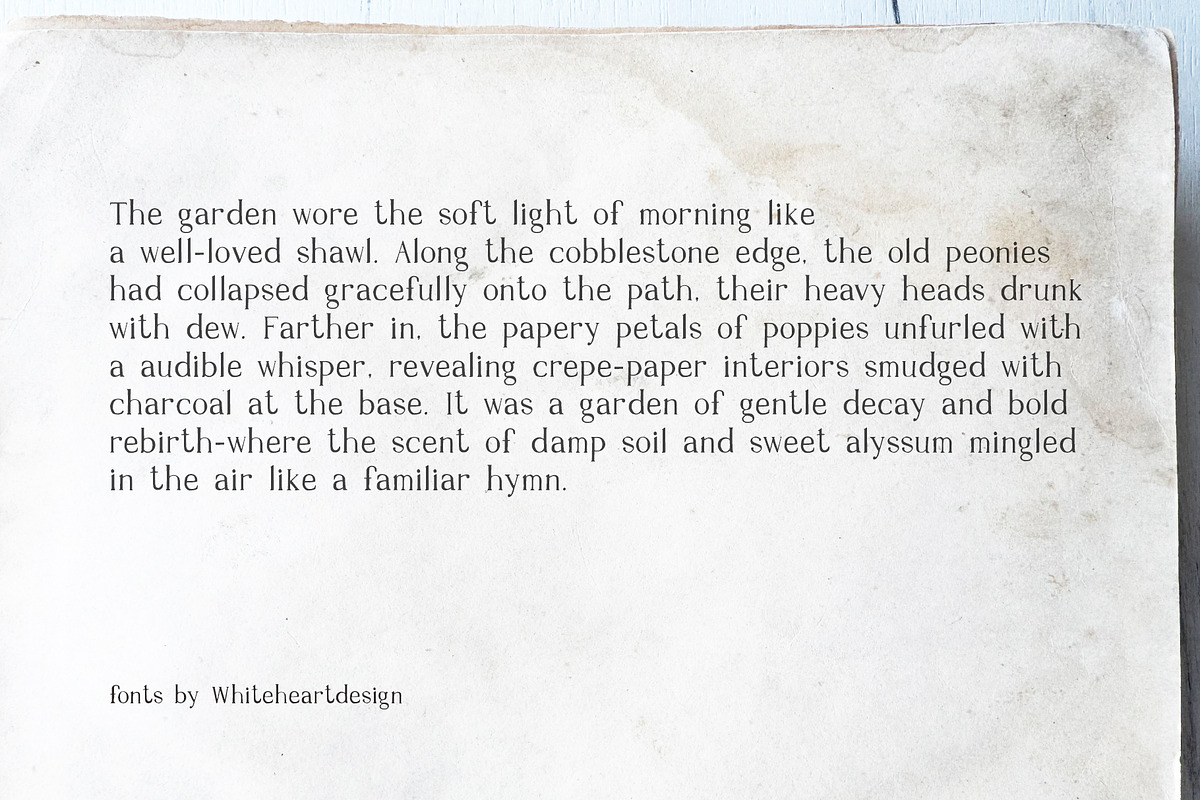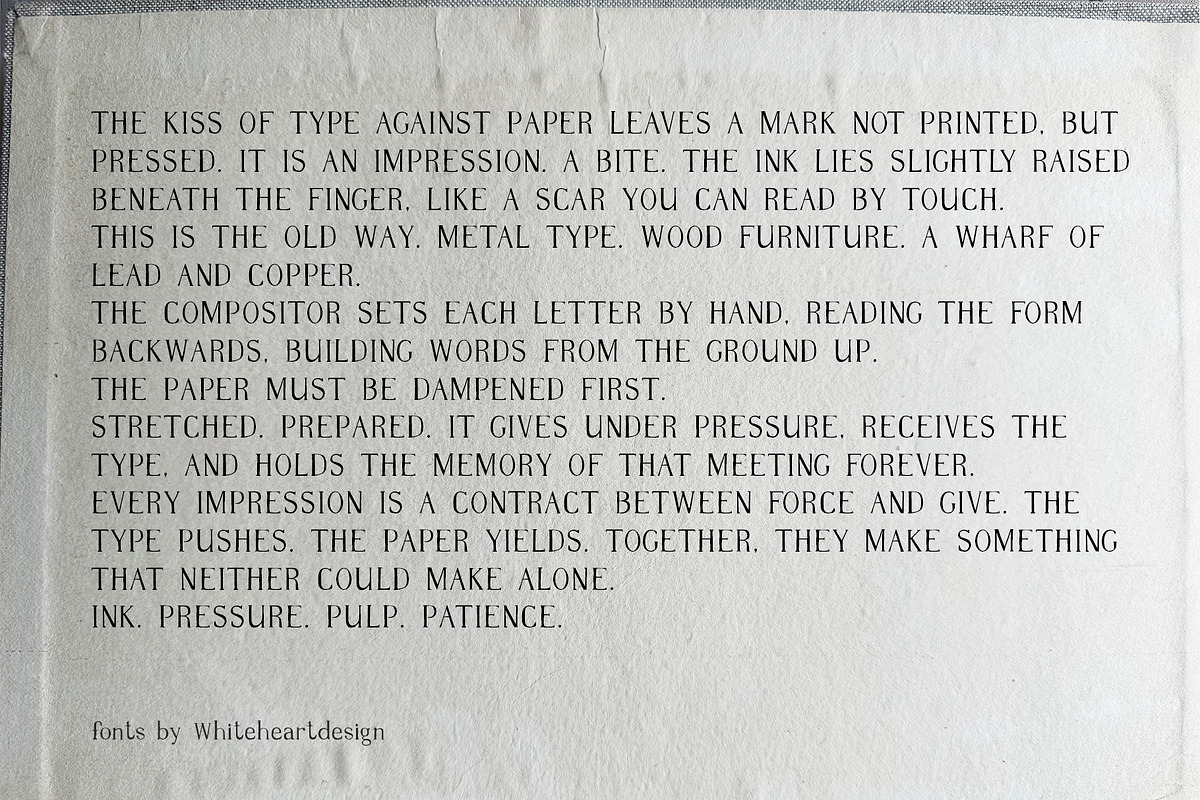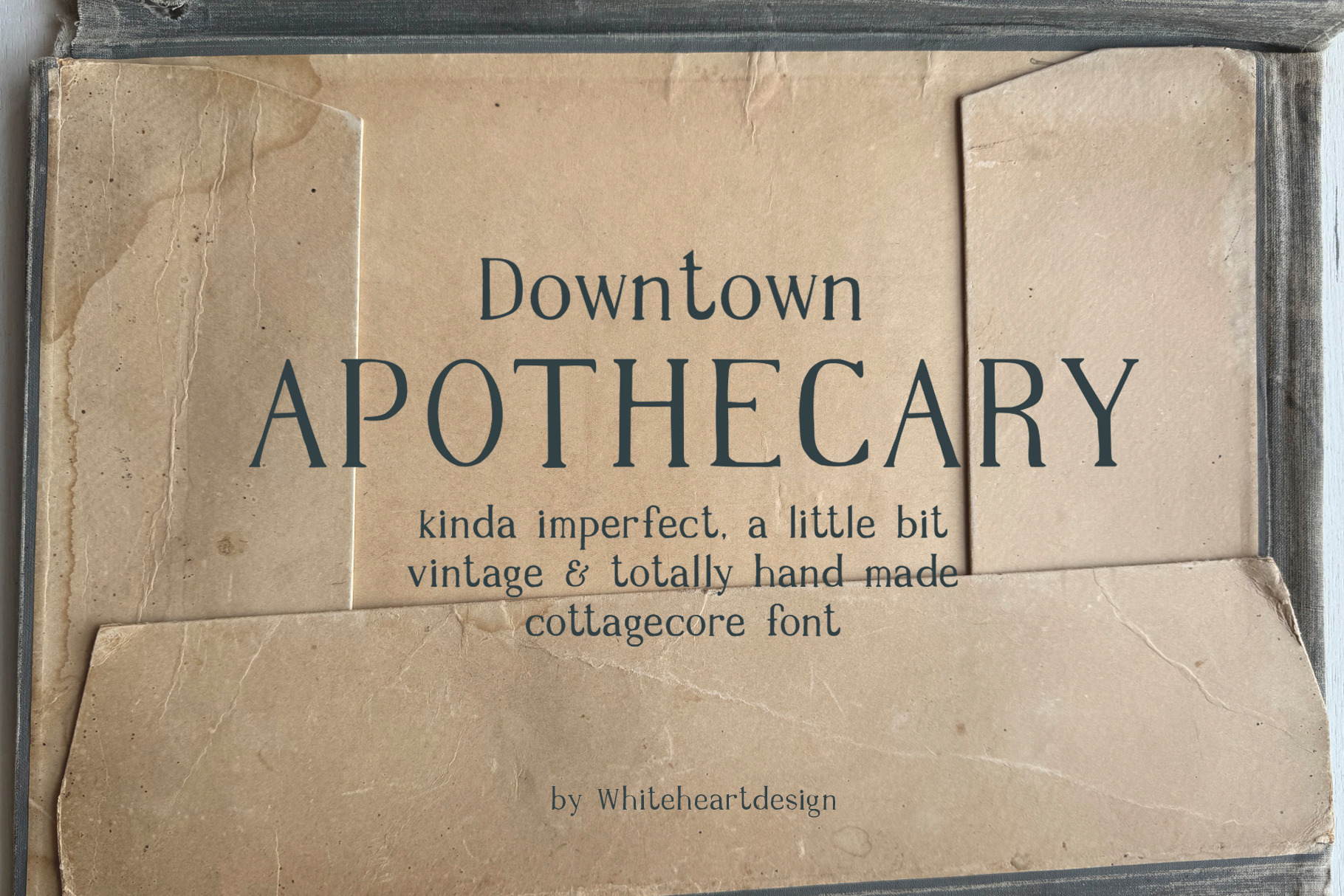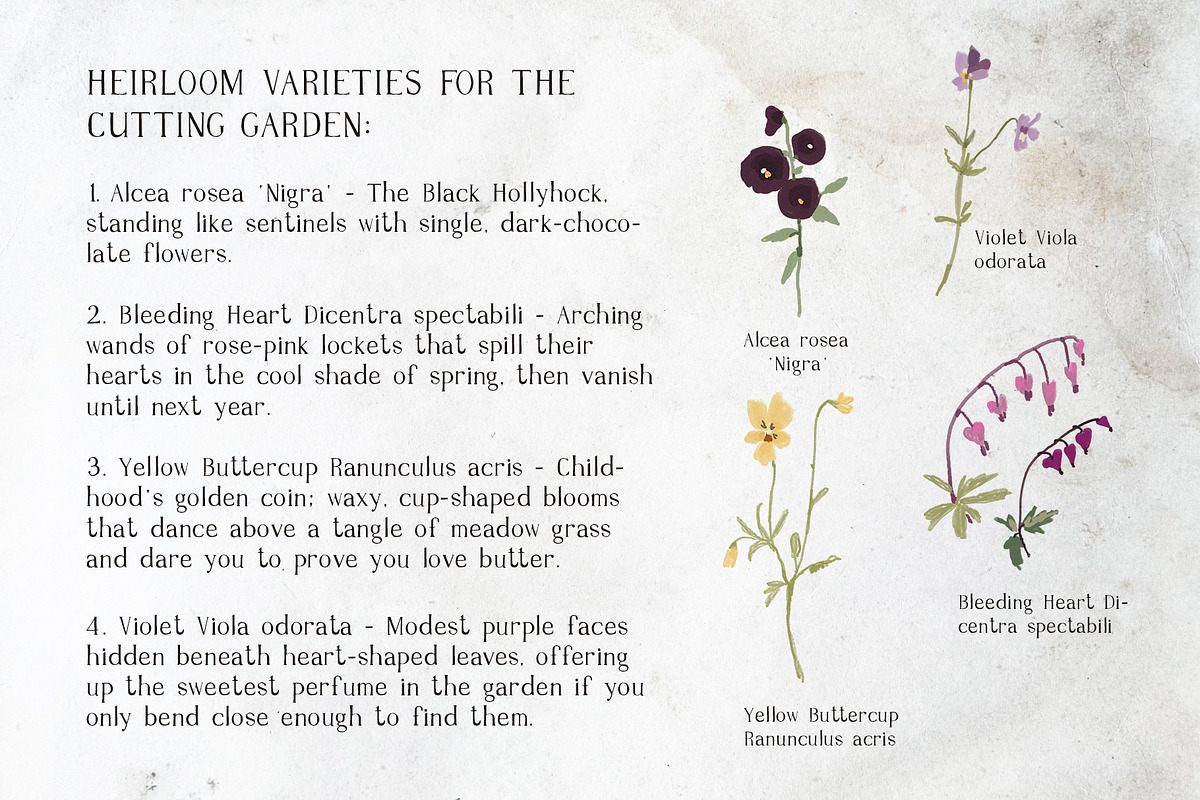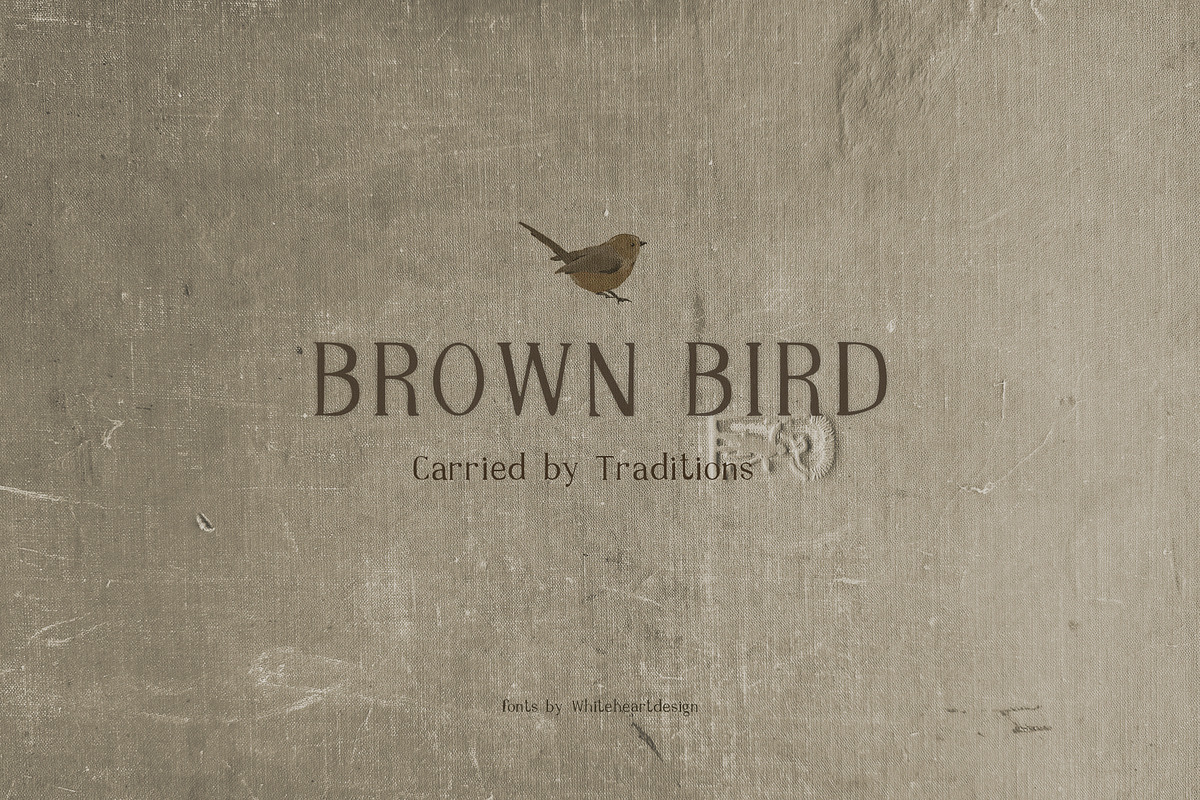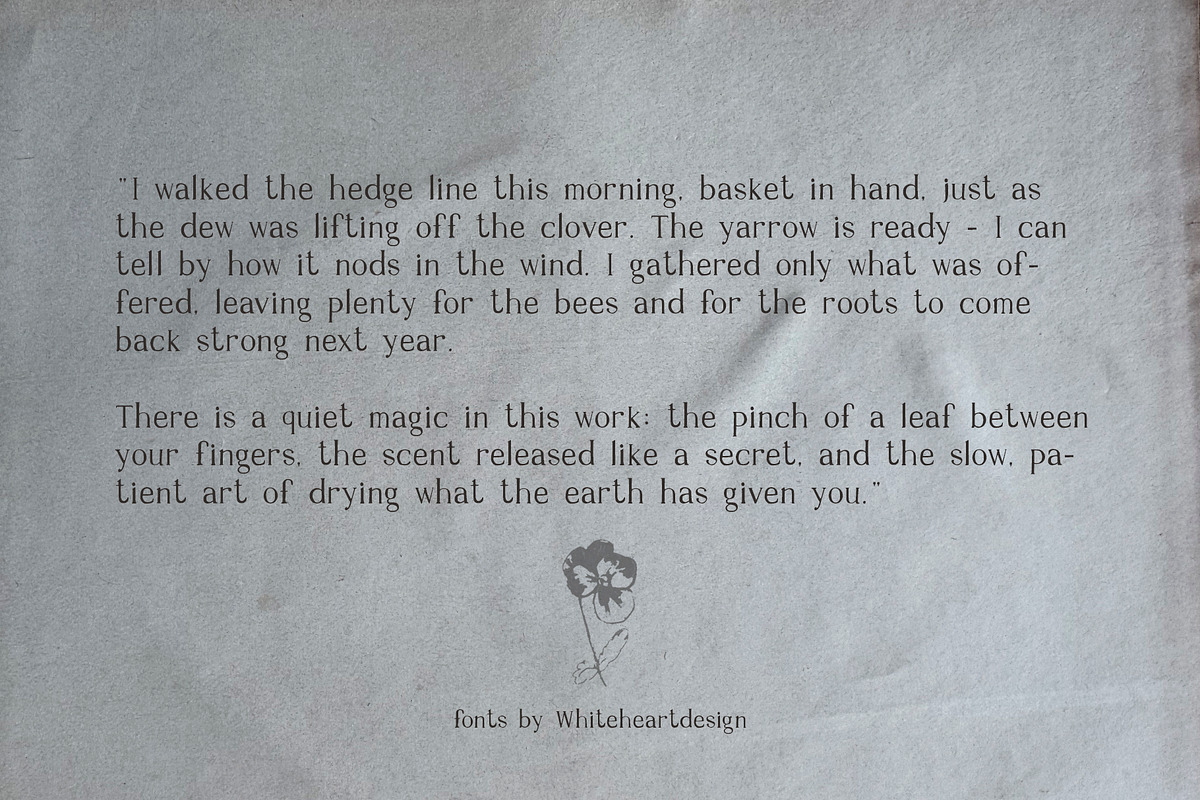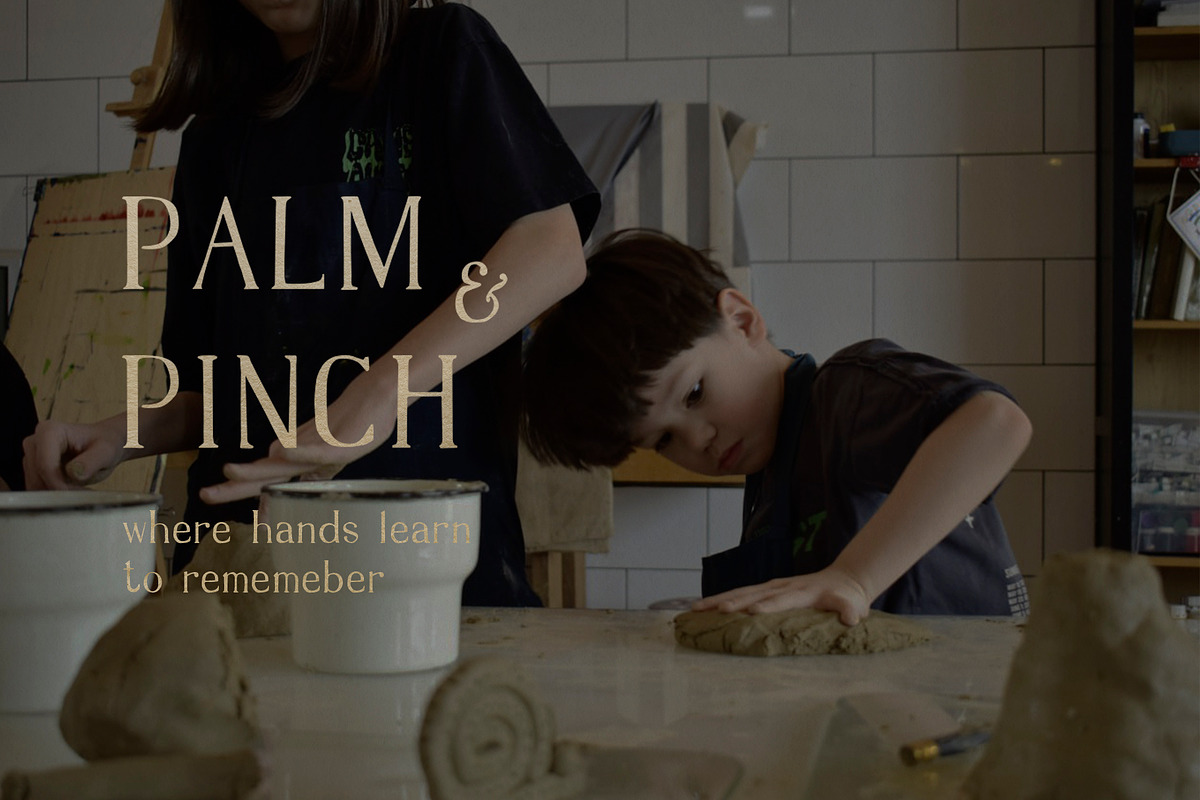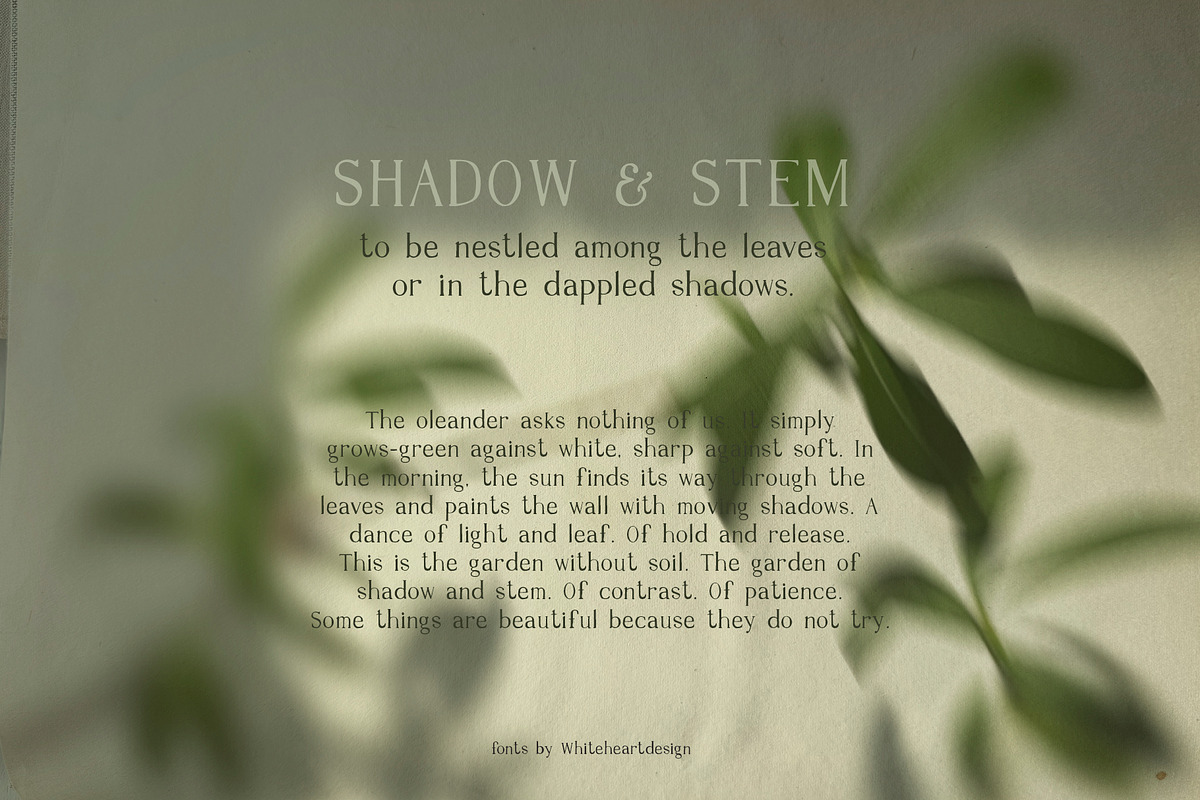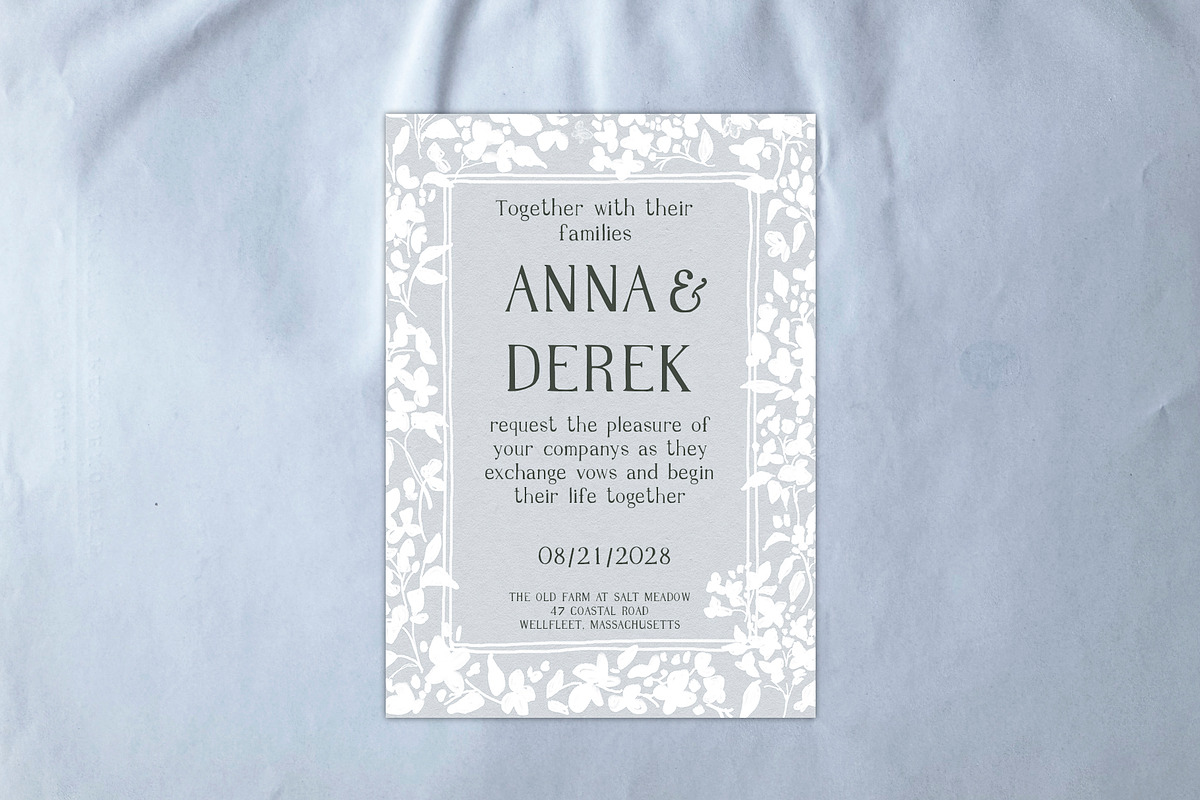
Imperfect Organic Serif Font
Downtown Apothecary is an organic, hand-drawn serif font that captures the imperfect charm of vintage storefronts, weathered signage, and old-world craftsmanship.
Designed for creators who value authenticity over perfection, this typeface brings warmth, character, and a distinctly human touch to every project.
The letters are drawn by hand, not rendered by machine. Each curve carries a subtle wobble. Each serif lands with gentle intention. The result is a font that feels alive-like it was painted on a window in 1923, or printed on a letterpress from worn wooden type, or written with a broad-nilo pen on a cracked leather ledger.
This font was born from a love of imperfection.
In a world of sterile, vector-perfect typefaces, Downtown Apothecary dares to be human. It asks to be touched. It looks at home on kraft paper, chalkboards, concrete walls, and aged cotton stock. It brings soul to branding and warmth to words.
Apothecary & Wellness Brands: Herb shops, dispensaries, natural remedies, essential oils, and holistic studios.
Vintage & Rustic Branding: Storefronts, signage, product labels, and packaging with an authentic, timeworn feel.
Coffee Shops & Bakeries: Menu boards, bag labels, chalkboard specials, and cafe identities.
Breweries & Distilleries: Beer labels, bottle caps, tap lists, and brand stories for craft spirits.
Editorial & Publishing: Book covers, zines, literary journals, and articles with a literary or bohemian edge.
Wedding Stationery: Invitations, place cards, and signage for couples who love the imperfect, the real, the handmade.
Florists & Garden Shops: Plant tags, seed packets, and botanical posters.
Music & Culture: Album covers, band posters, and merchandise for artists with an analog soul.
Tattoo & Art Studios: Flash sheets, studio signage, and artist portfolios.
Small Business & Makers: Any brand that wants to feel human, approachable, and true.
Full set of uppercase (caps) and lowercase (low letters)
Punctuation, numerals, and symbols
Standard ligatures for a natural, hand-drawn flow
• A beautifully imperfect ampersand that feels drawn, not designed
• Authentic letters are intentionally imperfect.
The story behind the font:
Downtown Apothecary began on a walk through an old city at golden hour. Storefronts with faded paint. Windows tagged with layers of history. Concrete walls holding the shadows of fire escapes. A vintage apothecary sign, barely legible, its letters softened by decades of sun and rain. That sign stayed. The memory of its imperfections-the way the paint had cracked, the way the serifs had worn down, the way it still said exactly what it needed to say-became the seed of this font. Downtown Apothecary is for designers who understand that the best work doesn't try to be perfect. It tries to be true.
Pairing suggestions:
Downtown Apothecary pairs beautifully with clean sans-serifs for contrast, or with messy handwriting fonts for a layered, personal feel. For a monochromatic, textured look, combine it with itself in different sizes-the caps for impact, the lowercase for reading. Technical details:
Imperfection: Retained intentionally-each letter has its own personality.